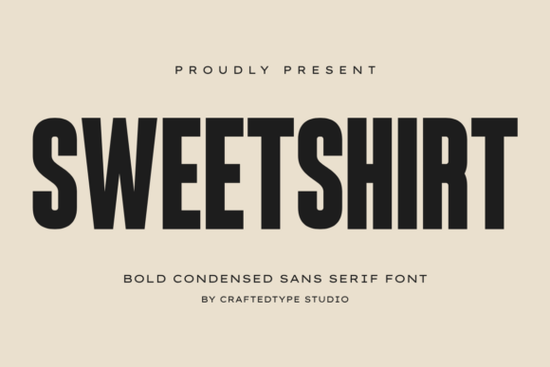
If you need a typeface that looks modern and clean without a lot of extra decoration, the Sweetshirt Font might be exactly what you are looking for. It is a bold condensed sans serif font designed to make text stand out with its tall, narrow shapes. If you work on print on demand products or brand identities, this font has a lot to offer.
What kind of design styles does Sweetshirt Font work best for?
Sweetshirt fits comfortably into a minimalist design style that values clean lines over clutter. Because the letters are condensed, it helps you pack a strong visual punch without taking up too much horizontal space. This means it works well for designs that need to look sharp and modern.
For example, if you are browsing our collection of writable font sans serif fonts or looking at minimalist arknights font sans serif fonts, you will notice that typefaces with tall x-heights often read as more authoritative and sleek. Sweetshirt shares that same vibe, making it a reliable choice for posters, editorial layouts, and any brand that needs a no-fuss, professional appearance.
Is Sweetshirt Font a good choice for Print on Demand (POD) projects?
Absolutely. Print-on-demand sellers often need fonts that look good on everything from t-shirts to tote bags. Sweetshirt is a bold font, so it remains very readable even when printed on fabric or curved around a mug.
Its tall letterforms create a strong silhouette that catches the eye. Whether you are designing a motivational quote for a poster or a simple brand name for a bag, this font keeps the focus on the message. Many popular POD styles rely on this kind of clean sans-serif look. You might find similar inspiration in the good days font sans serif fonts collection, which explores a similar relaxed but bold aesthetic.
Can I use this font for branding and logos?
Yes, it is actually a strong candidate for branding projects. Small business owners and designers often prefer condensed sans serif fonts because they create a modern, professional look that works well in small spaces, like social media avatars or website headers.
The elegant spacing between letters ensures that the font does not feel crowded, even when you type it in all caps. If you are working on a brand identity that requires a reliable and clean typeface, Sweetshirt fits the bill. For a slightly different take on modern sans serifs, you can also look at the gumoye font sans serif fonts to compare styles. Overall, it brings a refined, almost architectural feel to logos and packaging that aims for a high-end but approachable look.
- Pair it wisely. Because Sweetshirt is a bold condensed font, it works best as a heading or a short statement. Pair it with a lighter, wider sans serif or a simple serif font for body text.
- Use negative space. The strong vertical lines look fantastic when surrounded by plenty of white space. Try to avoid cluttering your design with too many extra elements.
- Choose the right project. It is naturally suited for modern apparel, posters, packaging that needs a premium feel, and minimal logos.
- Check for specific characters. Since it is PUA encoded, make sure your software supports this feature so you can access all the glyphs and special letters.
- Combine with other styles. If you are working on a brand kit, consider pairing it with a font like bakery cookies font sans serif fonts for a contrasting, more playful secondary option.
A practical next step: Before you finalize your design, test the font out in different sizes. Condensed fonts like Sweetshirt can sometimes look very different when scaled up for a headline versus scaled down for a tagline. Drop it into your design software, type out several variations of your text, and tweak the spacing until it feels perfectly balanced. If you regularly work on logos, branding elements, or Print on Demand products, adding a font as precise as Sweetshirt to your toolkit is a strong move for creating polished, modern designs.